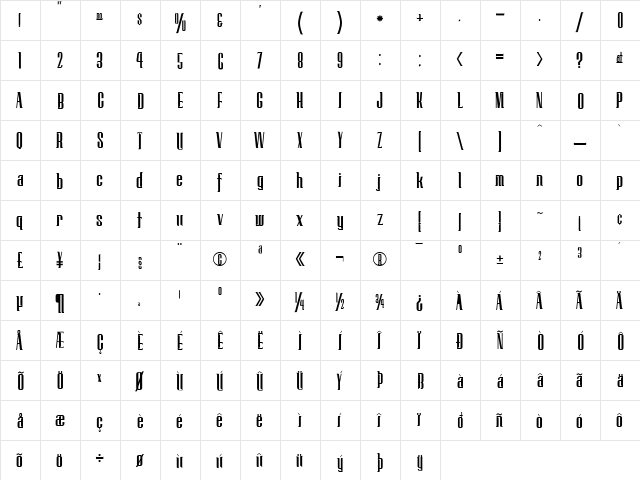
Technique Regular Font Preview
Technique Regular
Technique Regular Font Details
Design Context for Technique Typeface
Technique has a distinctly futuristic character, with geometric precision and clean angles that feel at home in technology, gaming, and sci-fi contexts.
Pro Tip: Try Technique with generous letter-spacing in UI labels and navigation — the geometric forms benefit from room to breathe.